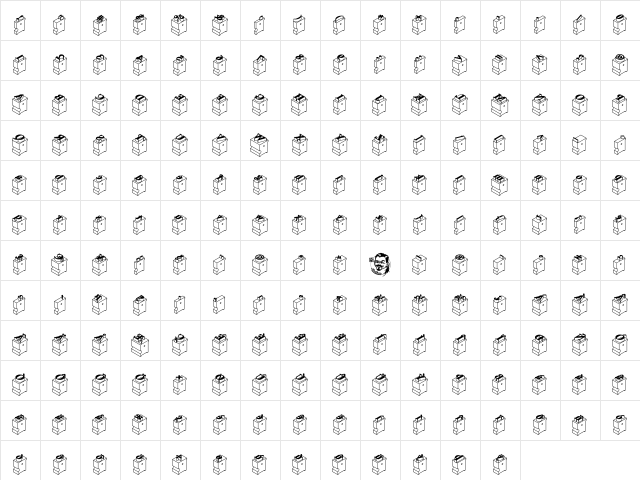
LeadTypeRightInked Regular
Design Context for LeadTypeRightInked Typeface
LeadTypeRightInked is a composed and adaptable typeface that performs quietly and consistently across a wide range of design contexts.